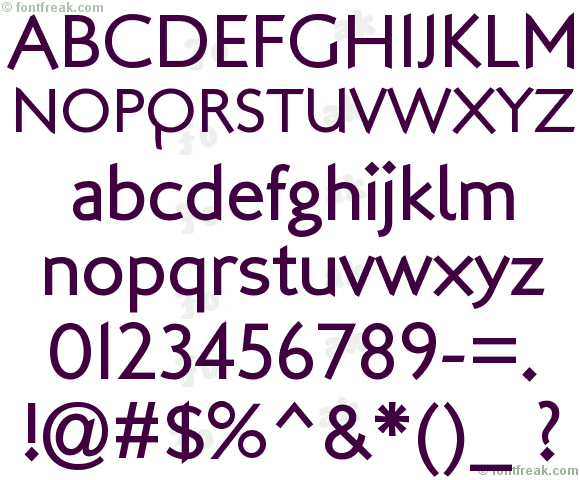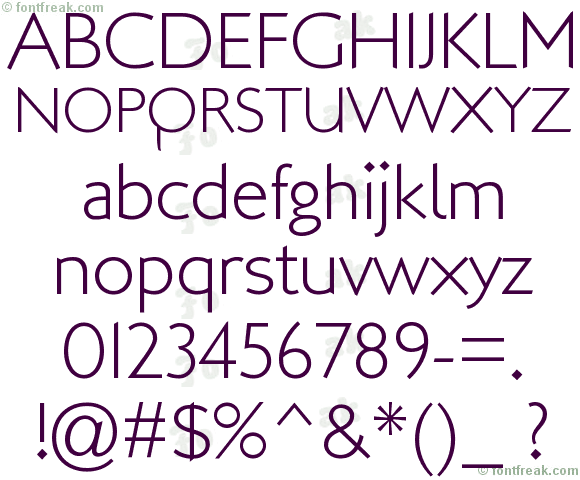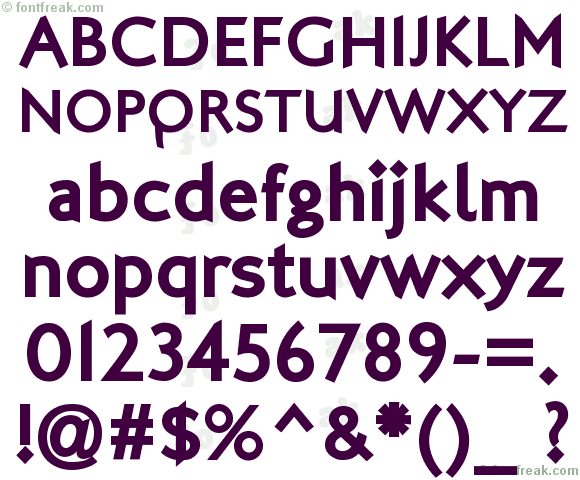
About London Between
The London Between font by Francois Bruel is a stunning display typeface that effortlessly blends modernity with a touch of classic elegance. This font belongs to the sans-serif category, characterized by its clean lines and geometric shapes that create a sense of balance and harmony. The stroke weight is moderate, giving it a sturdy appearance while maintaining a refined aesthetic. The visual contrast is subtle yet effective, with a slightly increased thickness in certain areas that draws the eye. The spacing is well-considered, allowing for legibility across various applications, while the overall design features minimal decorative elements that enhance its contemporary feel.
This versatile typeface is ideal for a range of creative projects. It works beautifully for wedding invitations, where its elegant yet approachable style can set a romantic tone. Additionally, the London Between font is perfect for movie posters, capturing attention with its bold presence and modern flair. Restaurant menus can also benefit from this typeface, lending a chic and sophisticated vibe that complements any culinary theme. Moreover, graphic designers and content creators will find it an excellent choice for branding materials, as it conveys professionalism while remaining visually engaging.
What sets the London Between font apart is its unique ability to marry contemporary design with timeless elegance. Its balanced proportions and subtle nuances make it an outstanding choice for various applications, ensuring that your projects stand out with sophistication and clarity. Don't miss the opportunity to enhance your work with this striking typeface—London Between font free download is available now for all your design needs.